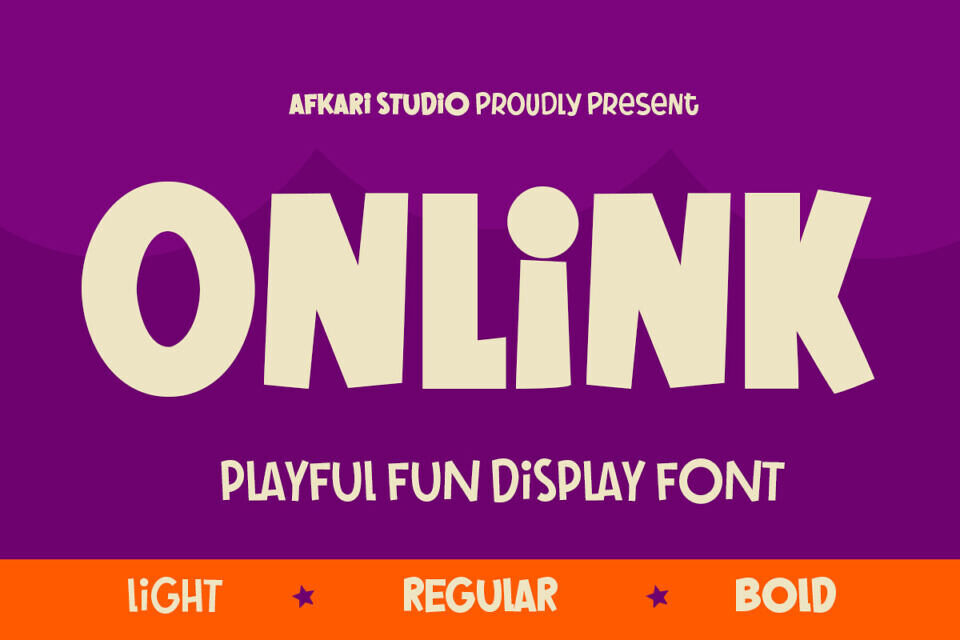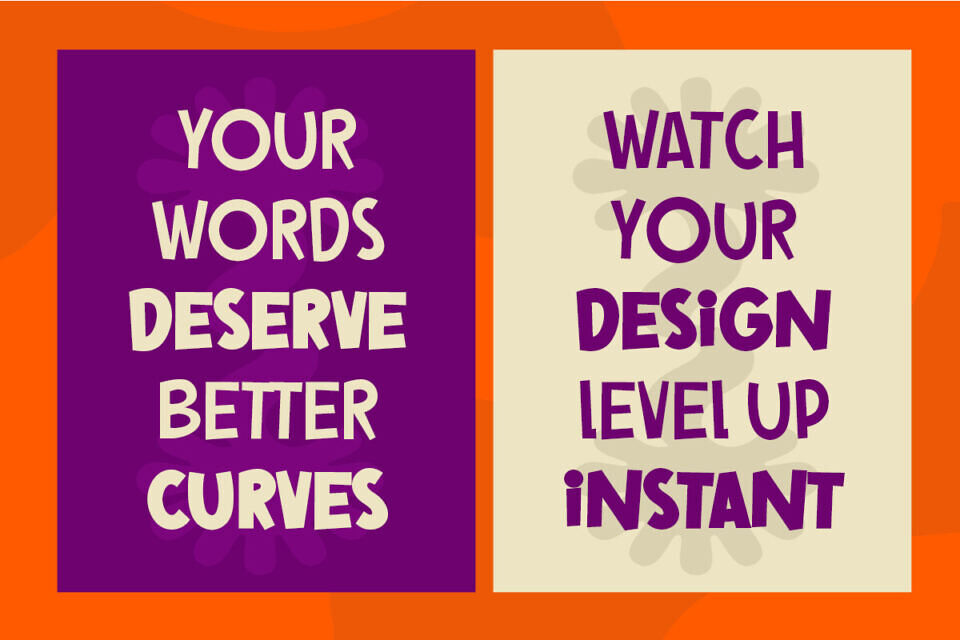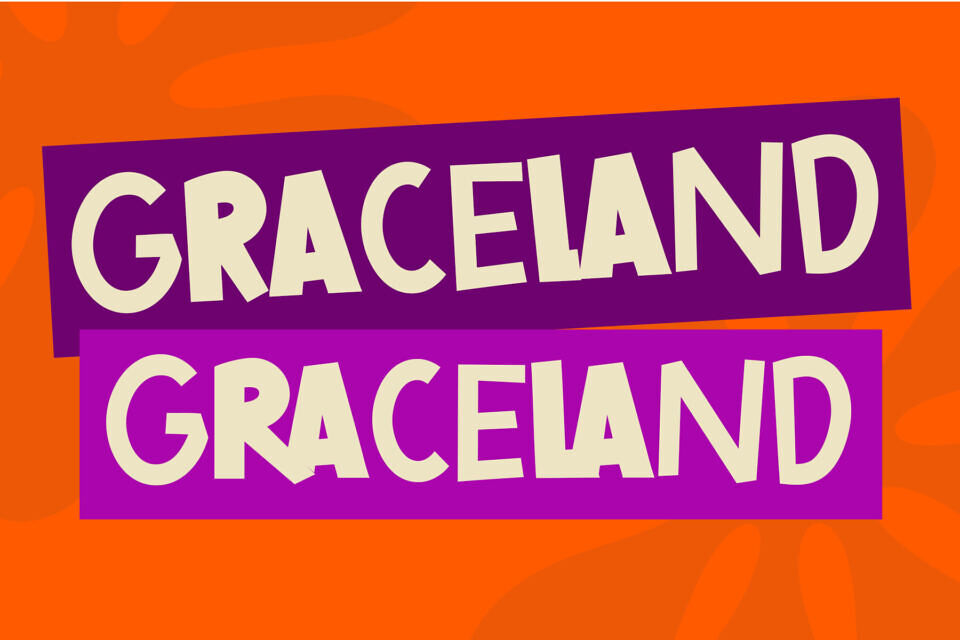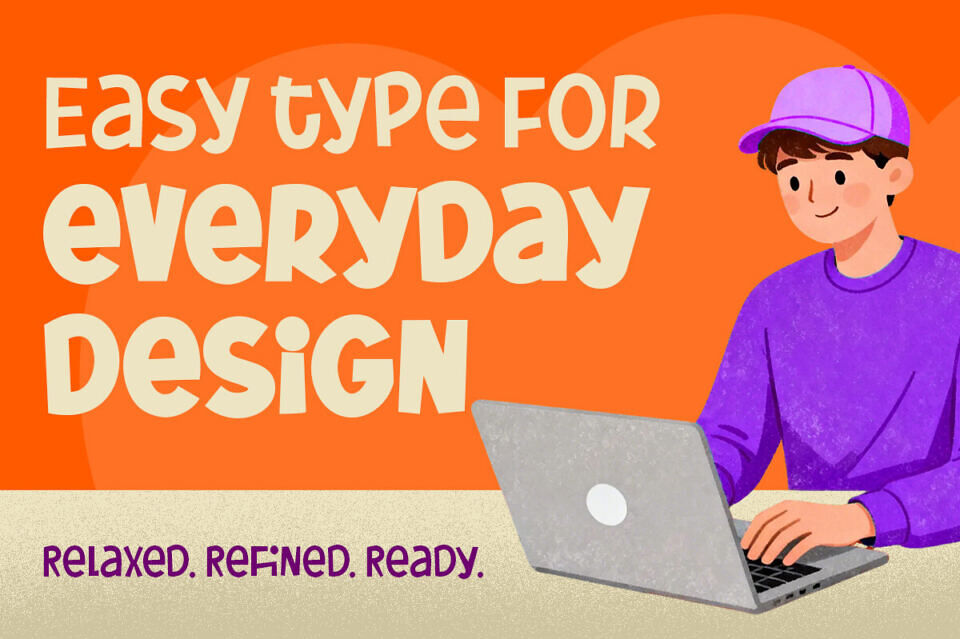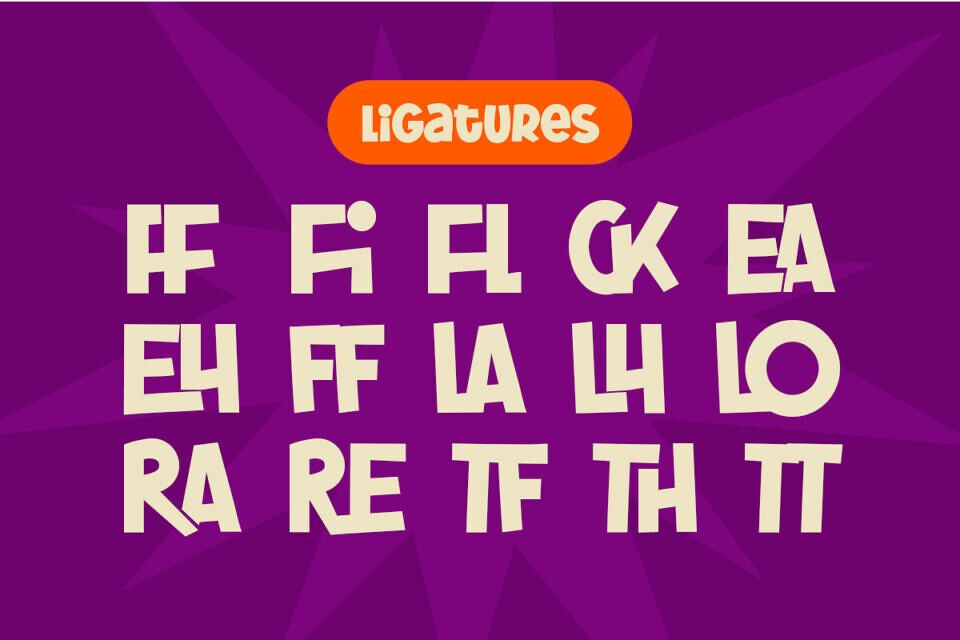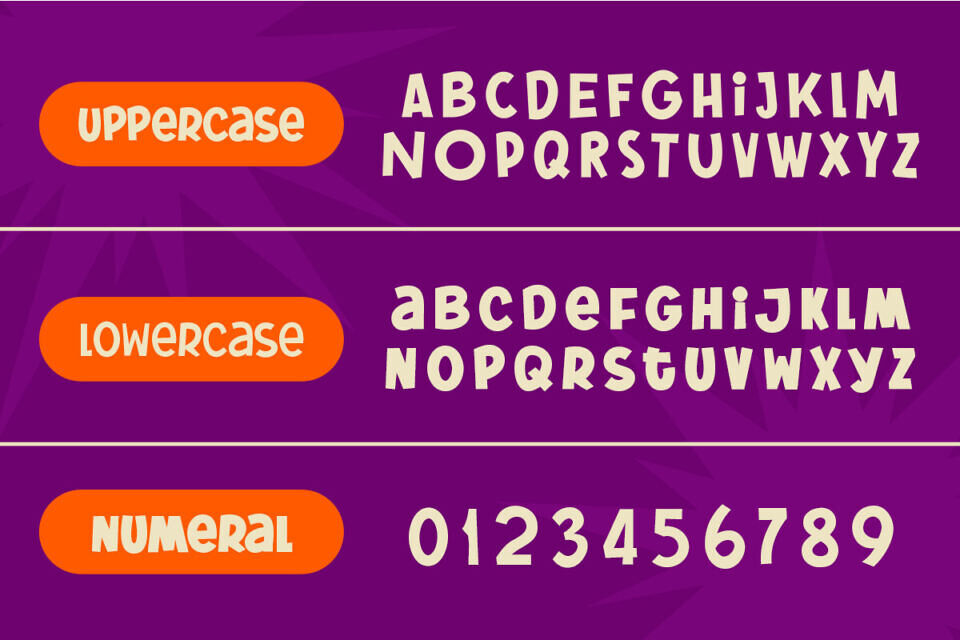
Onlink is a playful and fun display font designed to bring cheerful energy and bold personality into your creative projects. Featuring lively letterforms and friendly character shapes, this font instantly creates an eye-catching and approachable look.
Built with a modern playful style, Onlink is perfect for designs that need to feel joyful, casual, and expressive while maintaining strong readability for headlines and branding. Whether used in digital or print projects, this font helps designs stand out with a warm and fun personality.